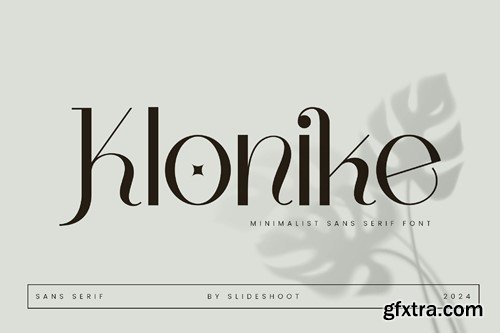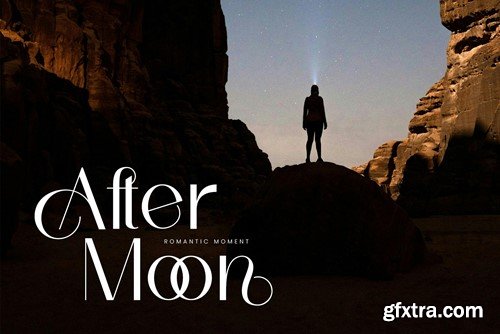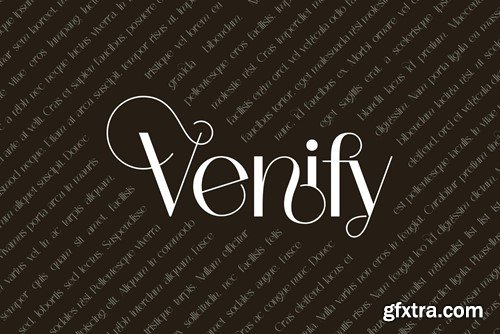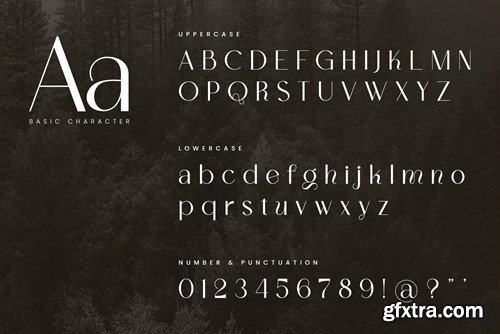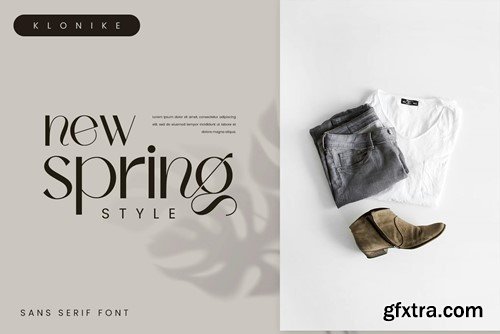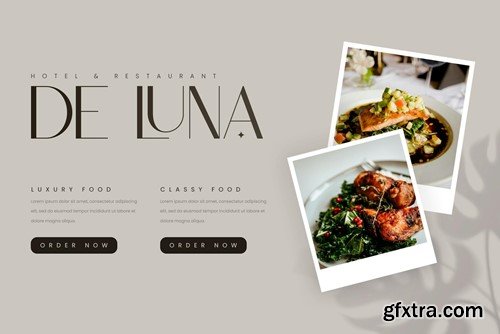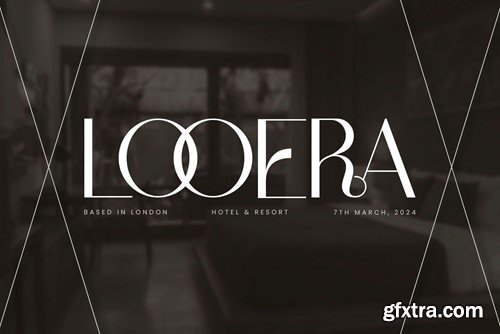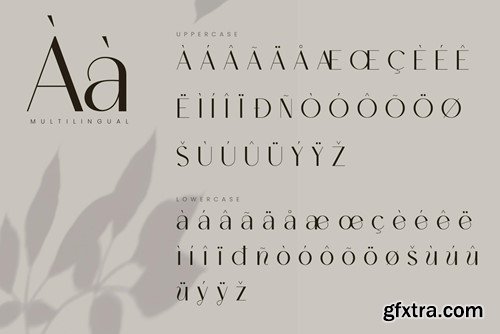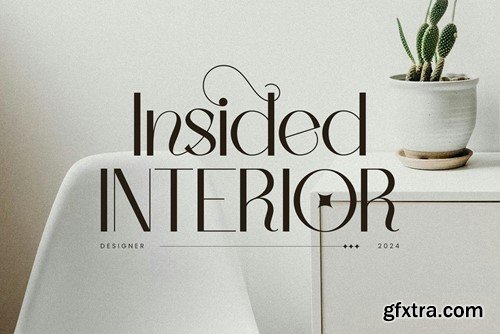
昆仑体无衬线字体 4Z88KCX
Klonike Sans Serif Font 4Z88KCX
Klonike Sans Serif Font
Klonike Sans Serif is a balanced, smooth, elegant and stylish sans serif font. He has a beautiful character. It fits perfectly with invitation card designs, company logos, movie titles, movie names, business cards, book titles, brand names and various other designs. Klonike Sans Serif is a subtle sans serif font that exudes sophistication and elegance. Its stylish alternations and ligatures make this font the perfect partner for any project.
FEATURE :
• Ligature
• Uppercase and lowercase
• Numbering and Punctuation